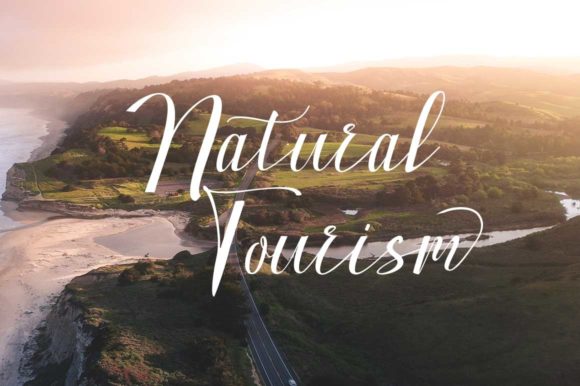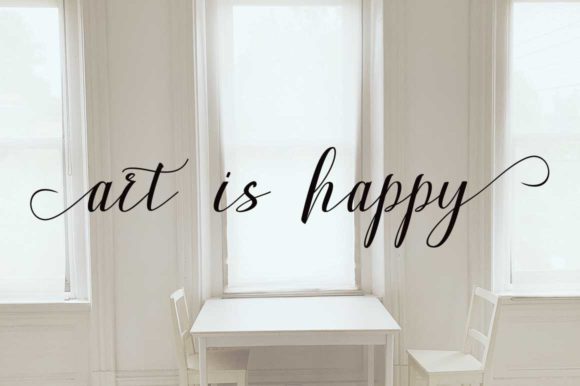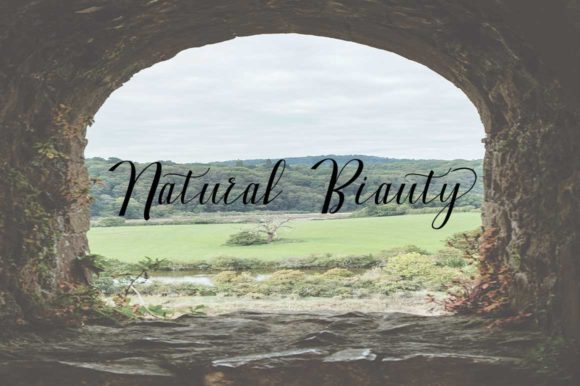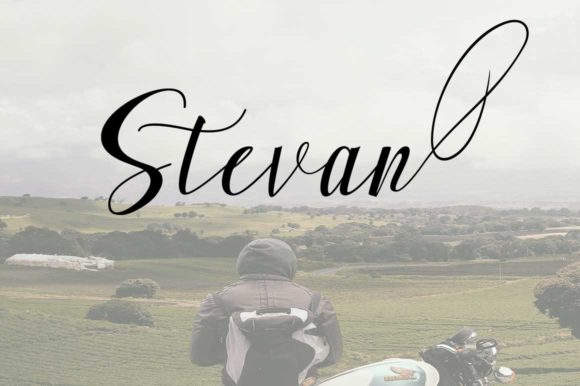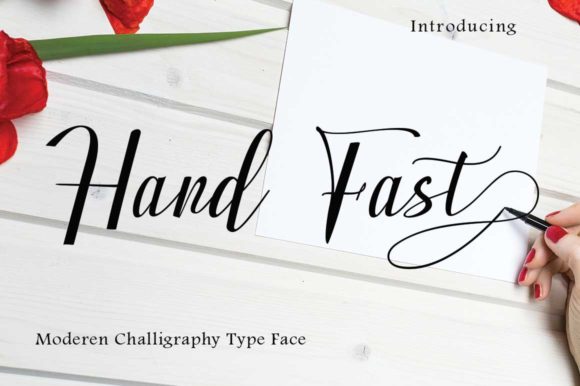
Discover the Charm of Hand Fast Font: A Simple yet Elegant Handwritten Font
Are you a designer or crafter looking for a font that adds a touch of personality to your projects? Look no further than Hand Fast Font, a beautiful and elegant handwritten font that exudes a casual charm. In this article, we’ll dive into the unique features of Hand Fast Font and explore how it can inspire your creative endeavors.
What is Hand Fast Font?
Hand Fast Font is a simple and elegant handwritten font designed to bring a personal touch to your designs. Its casual and relaxed vibe makes it perfect for a wide range of projects, from creative crafts to digital designs. The font’s unique characteristics make it stand out from other handwritten fonts, making it an excellent choice for designers and crafters looking to add a touch of whimsy to their work.
Unique Features of Hand Fast Font
So, what sets Hand Fast Font apart from other fonts? Here are a few of its unique features:
- Simple yet Elegant: Hand Fast Font has a simple, uncomplicated design that belies its elegance. The font’s clean lines and flowing curves make it a joy to read and use in designs.
- Casual Charm: Hand Fast Font has a distinctly casual feel, making it perfect for projects that require a relaxed, laid-back vibe.
- Handwritten Personality: The font’s handwritten nature gives it a personal touch that’s hard to replicate with other font styles.
- Versatile: Hand Fast Font is versatile and can be used in a wide range of projects, from digital designs to craft projects.
Hand Fast Font is an excellent choice for designers and crafters looking to add a touch of personality to their projects. Here are a few ways you can use Hand Fast Font to inspire your creative endeavors:
- Digital Designs: Use Hand Fast Font in digital designs such as social media graphics, blog posts, and website headers to add a personal touch.
- Craft Projects: Add Hand Fast Font to your craft projects, such as handmade cards, scrapbooking, and DIY signs, to give them a unique and personal touch.
- Branding: Use Hand Fast Font in branding materials, such as logos and business cards, to create a distinctive and memorable brand identity.
Tips for Using Hand Fast Font
Here are a few tips for getting the most out of Hand Fast Font:
- Pair with Other Fonts: Experiment with pairing Hand Fast Font with other fonts to create a unique and visually appealing combination.
- Use in Headlines: Use Hand Fast Font in headlines and titles to add a touch of personality and draw attention to your content.
- Experiment with Colors: Try out different colors and textures with Hand Fast Font to add depth and interest to your designs.
Hand Fast Font is a beautiful and elegant handwritten font that adds a touch of personality to any project. Its simple yet elegant design, casual charm, and handwritten personality make it an excellent choice for designers and crafters looking to create unique and memorable designs. Whether you’re working on digital designs, craft projects, or branding materials, Hand Fast Font is sure to inspire your creative endeavors.